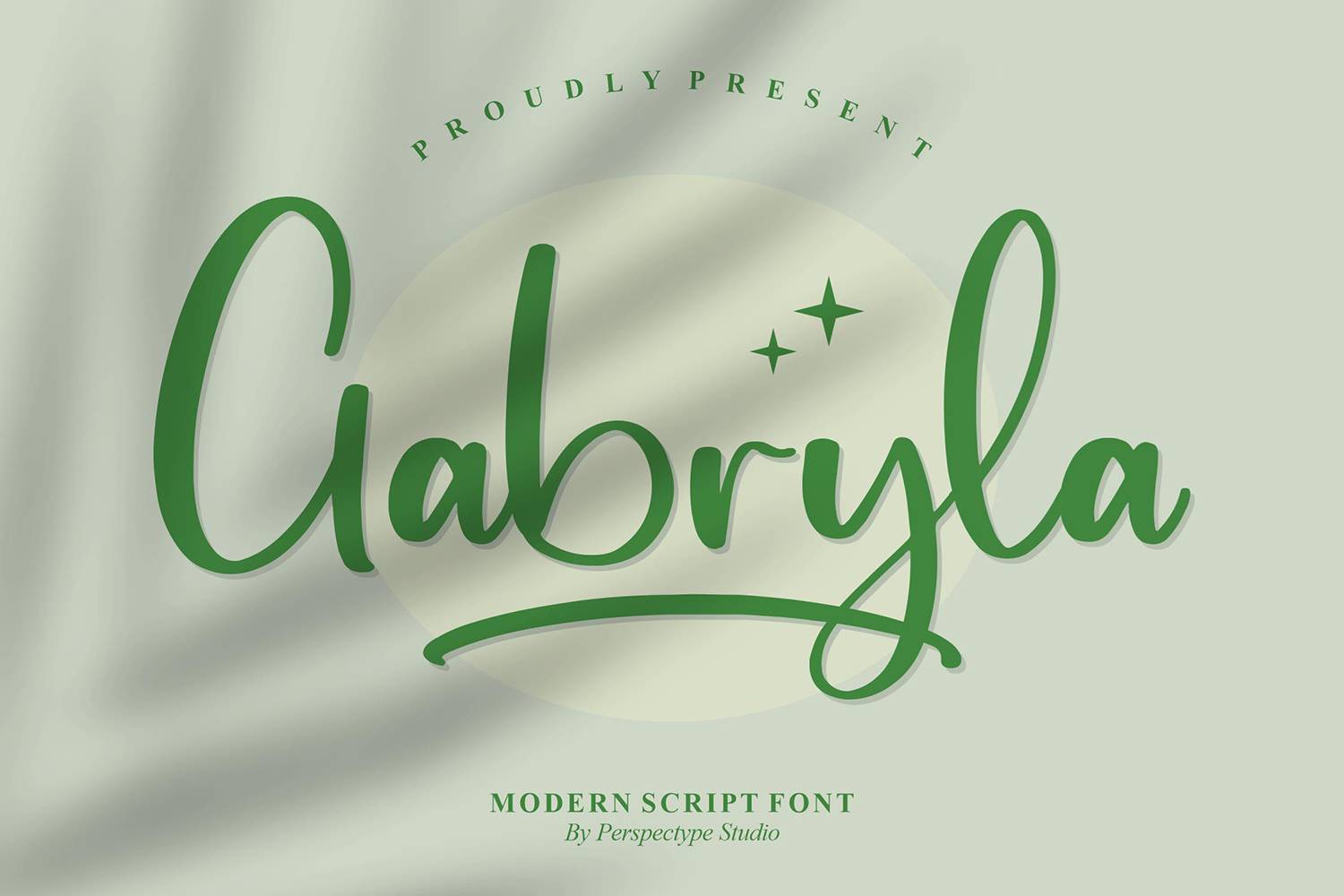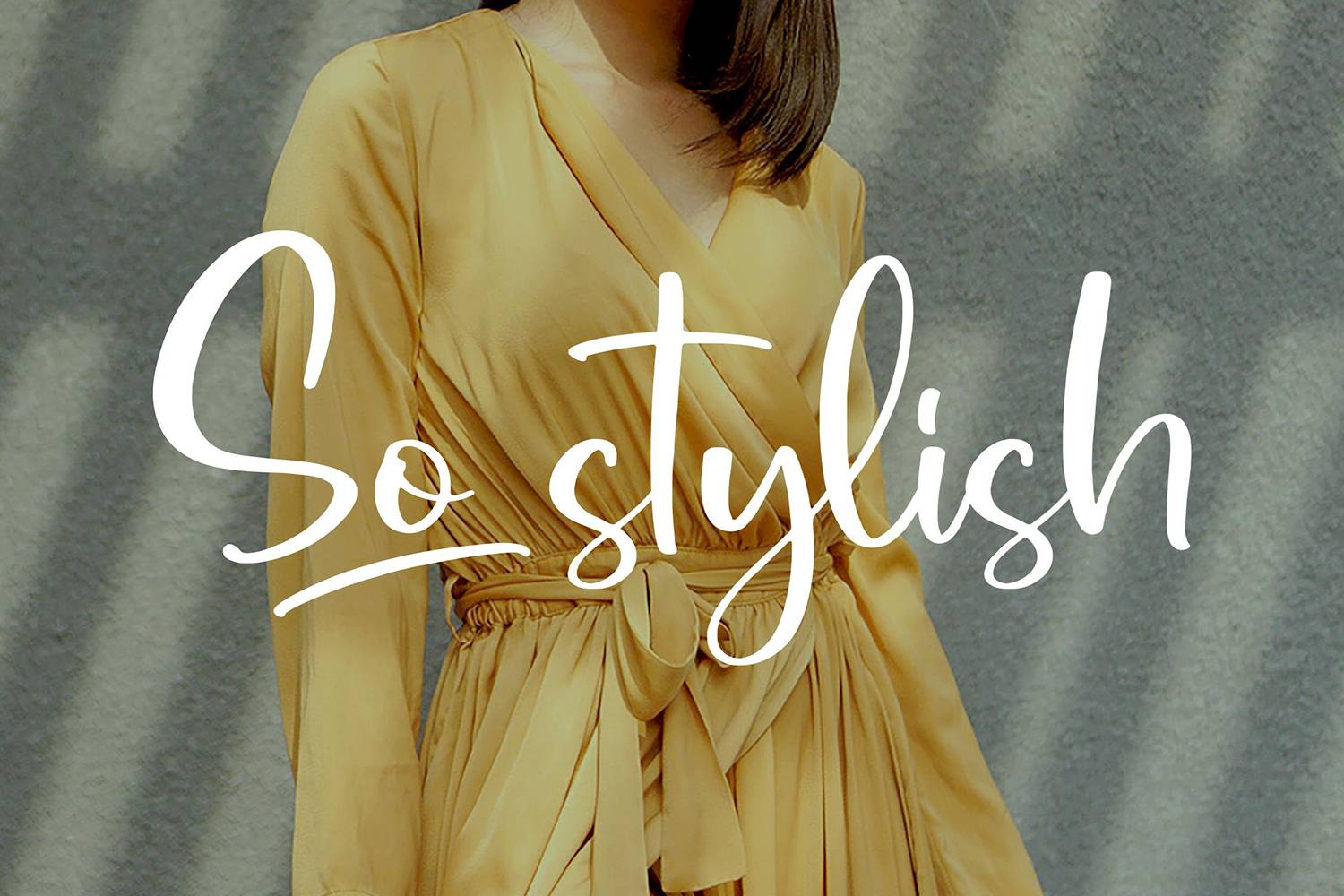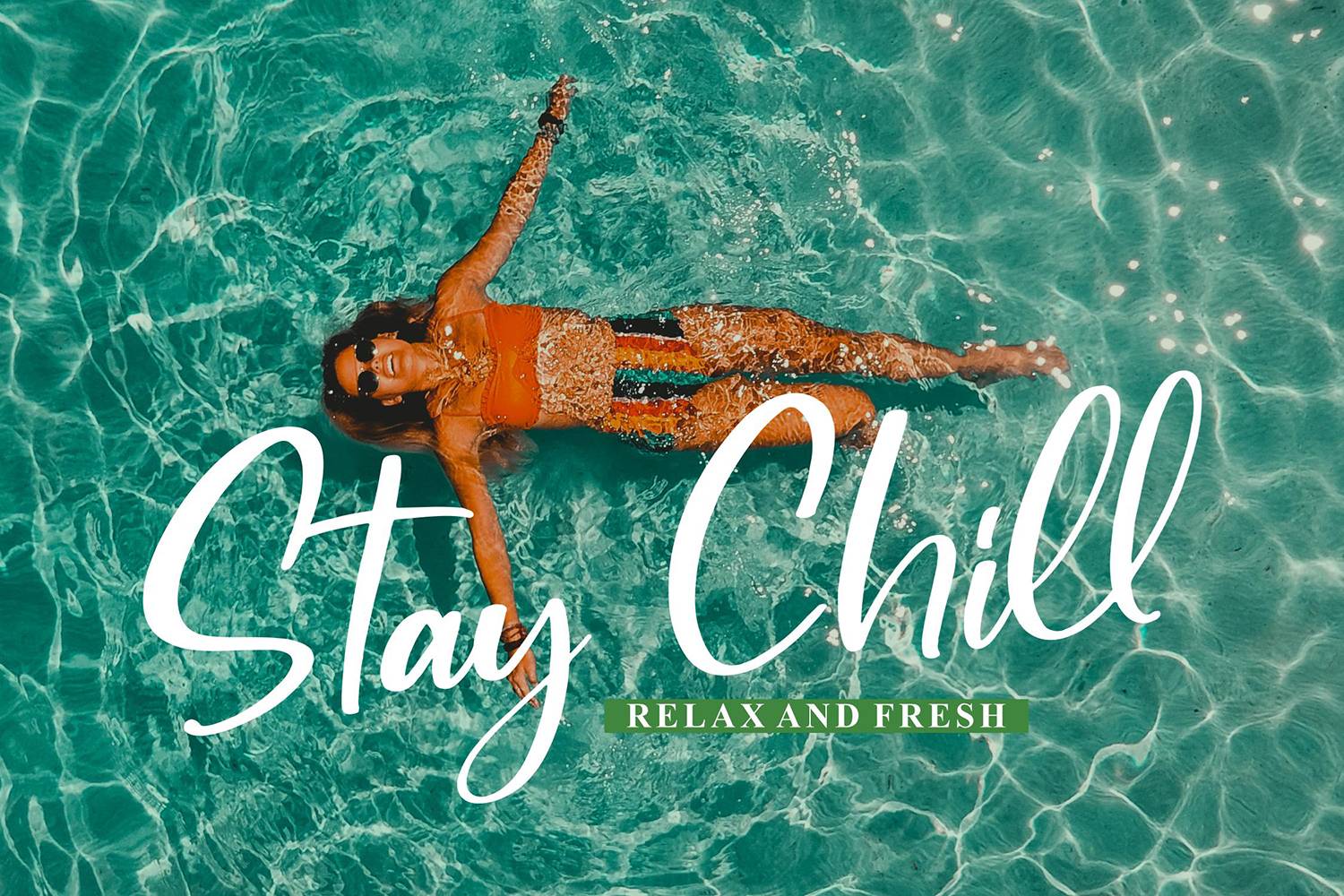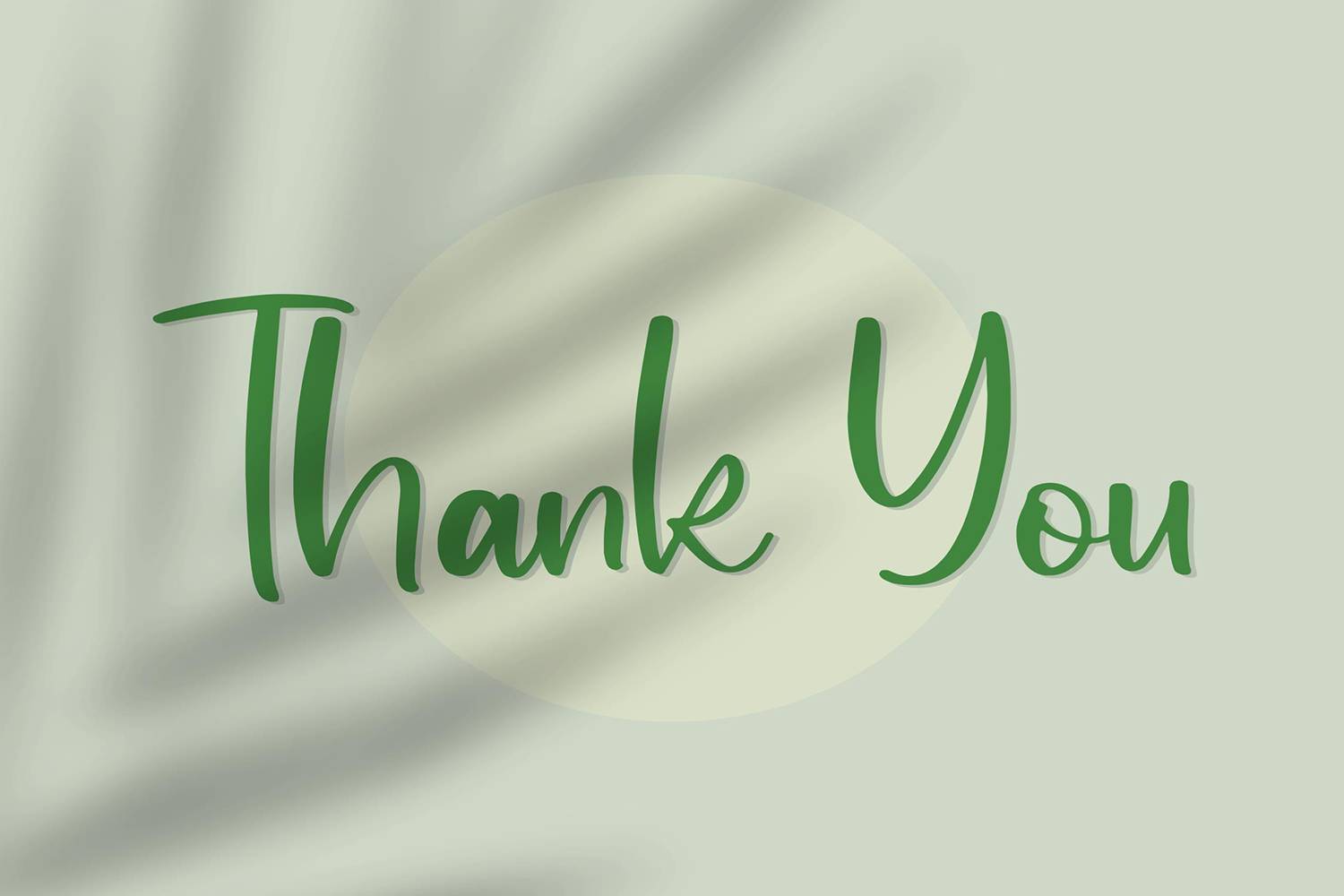
Gabryla is a playful and elegant handwritten script font with a casual yet refined feel. Its tall, narrow letterforms and delicate strokes give it a friendly and approachable personality, making it perfect for creative branding, invitations, and personal projects that need a touch of charm and sophistication. The font’s clear legibility and distinctive style work well for headlines and logos where a warm, authentic vibe is desired.
Gabryla Font
About Gabryla Font